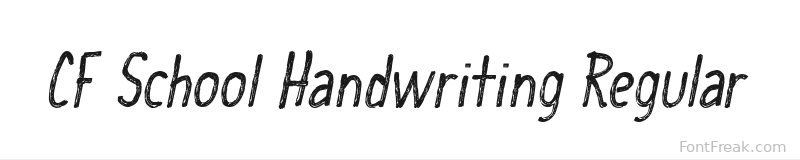
CF School Handwriting Regular
About CF School Handwriting Regular
CF School Handwriting Regular by Cloutierfontes is a charming handwritten font that captures the essence of youthful creativity and informal expression. This font falls under the handwritten category, featuring a playful yet legible style that mimics natural handwriting. The strokes are moderately weighted, providing a balanced appearance that is both inviting and easy to read. The slight variations in stroke width and the casual spacing between letters add to its authentic handwritten feel, making it perfect for projects that aim to convey warmth and personal touch.
This versatile font is ideal for a variety of applications. It shines in educational materials, such as worksheets and school projects, where a friendly, approachable font can encourage engagement among students. Additionally, CF School Handwriting Regular is well-suited for children's book covers, providing an inviting aesthetic that appeals to young readers. Craft enthusiasts will find it perfect for scrapbooking and personalized greeting cards, while small business owners can use it effectively in branding materials that require a touch of whimsy. Content creators will appreciate its warm, relatable vibe for social media graphics and blog headers.
What sets CF School Handwriting Regular apart is its ability to evoke a sense of nostalgia and authenticity. Its friendly appearance not only enhances visual communication but also fosters a connection with the audience, making it an excellent choice for those looking to create memorable and engaging content.